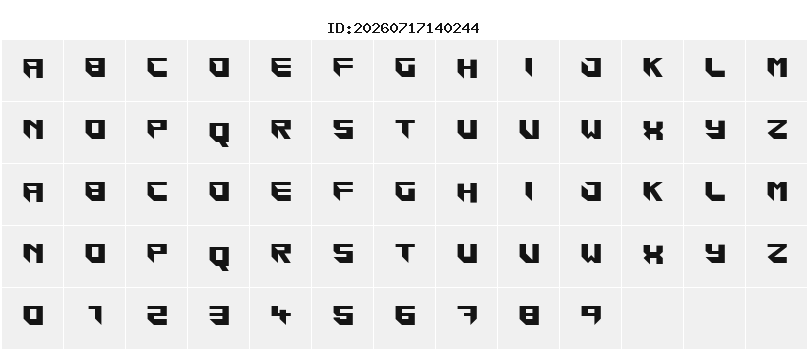
• Font Name: Blockar
• Full Font Name: Blockar
• PostScript Name: Blockar
• Designer: Philipp Hubert
About Blockar.ttf
Blockar.ttf is a modern, elegant sans-serif font designed for ultimate readability and visual harmony. Perfect for branding, headlines, web design, and print materials.